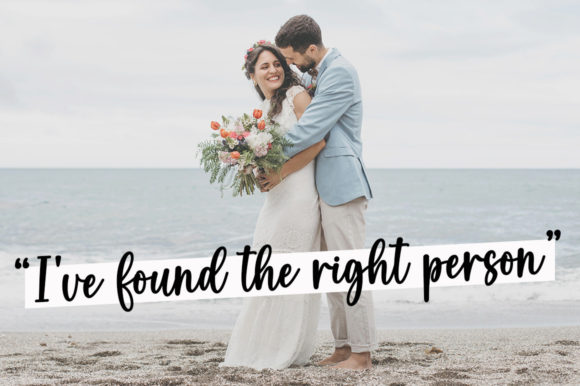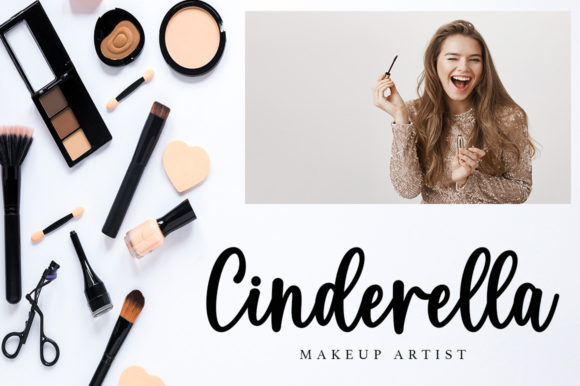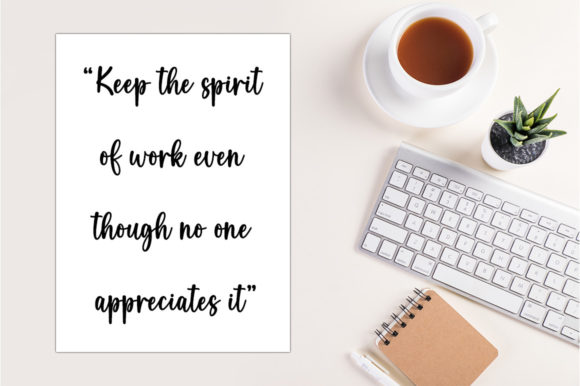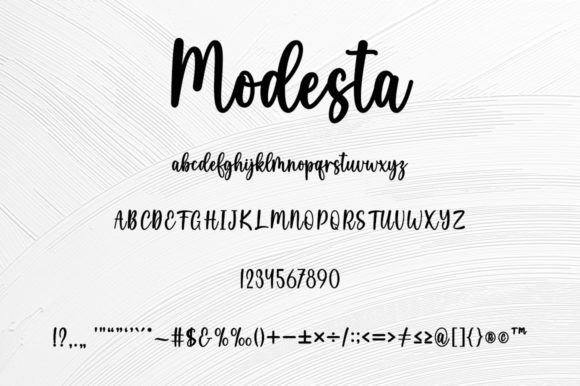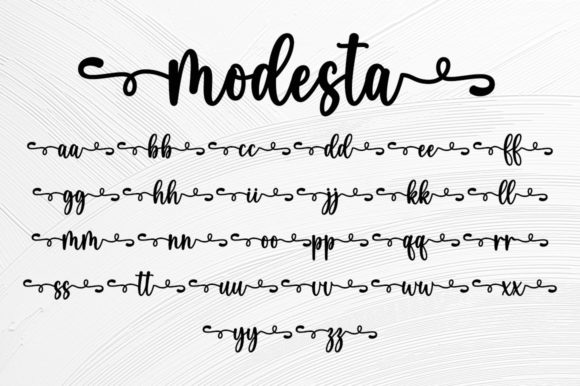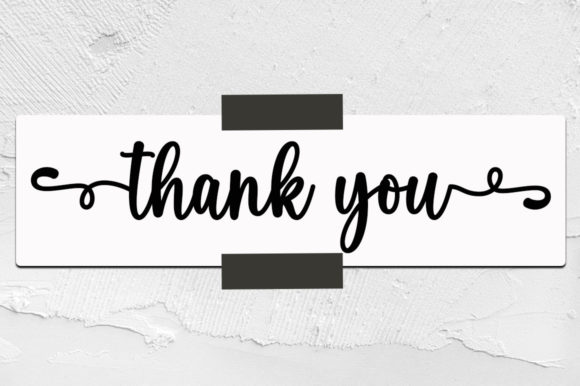
Introduction to Modesta Font
Modesta is a flowing handwritten font, described by an elegant touch, perfect for your favorite projects.
This font is PUA encoded which means you can access all of the glyphs and swashes with ease .
Key Features of Modesta Font